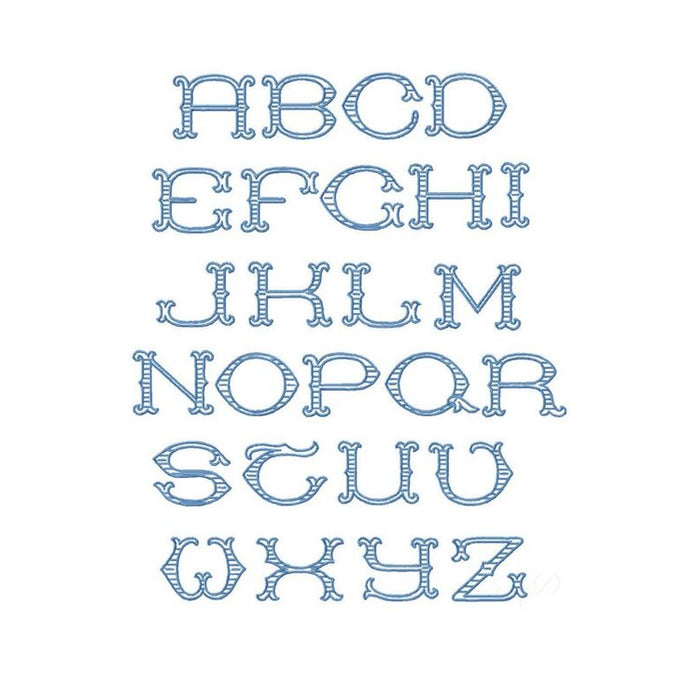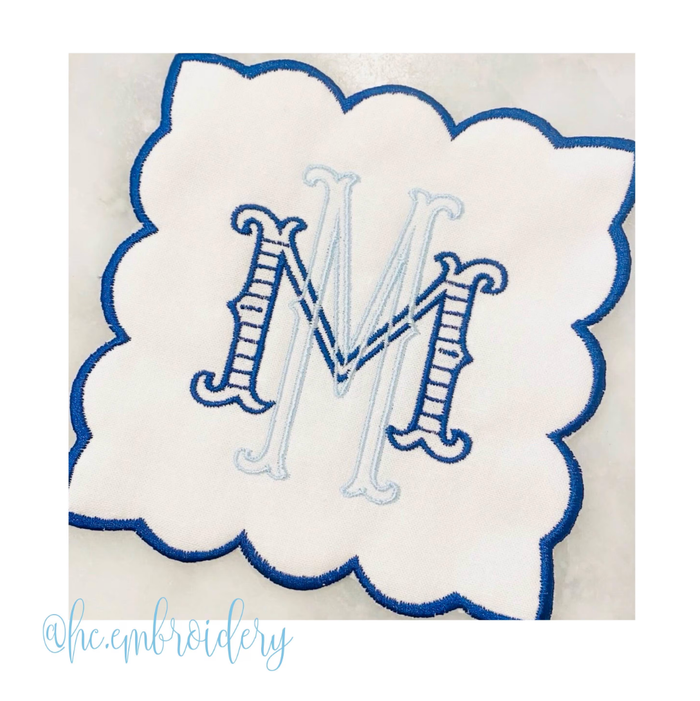
Barrett Stripe Small Embroidery Font
Unlock your creativity with the Barrett Stripe Small Embroidery Font! This versatile embroidery package features four sizes of our unique Satin Stitch Striped font, perfect for customizing a variety of projects.
Each size includes both 26 wider letters and 26 tall, thin letters, offering flexibility for all your crafting needs. Sizes included in this download are 1.5”, 2”, 3”, and 3.5”, available in formats such as PES, DST, JEF, EXP, VIP, VP3, HUS, XXX, and EMB.